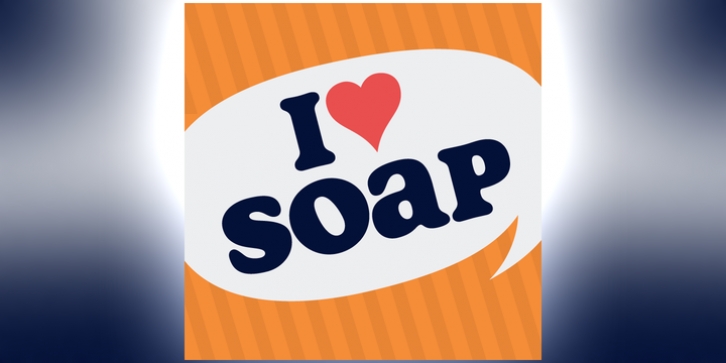
Some like it hot. Others play it cool, clean and laid way back. You say Soap looks familiar? Sure, it looks a bit like Cooper Black but Soap is much more. It’s so slick lowercase won’t even stick to it. And check out the top of the C and G. That’s a beautiful thing. Soap’s numerals line up with the capitals making it right-on for t-shirts and titles. Soap has real tight spacing for that pseudo-seventies look. Groovy dingbats? Soap’s got ‘em.